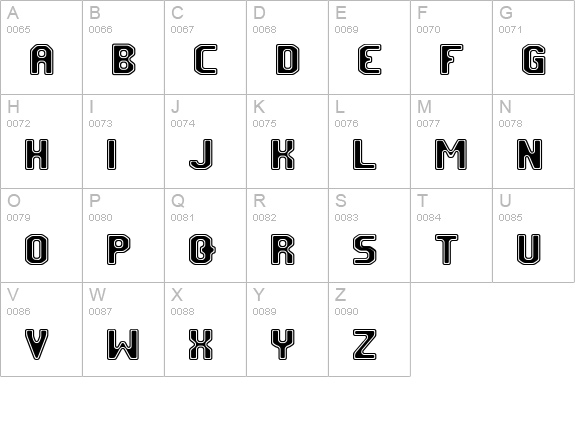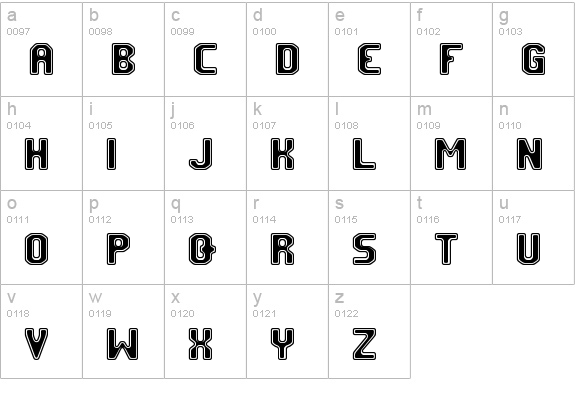
FM University is a versatile and modern font that will add a touch of elegance and sophistication to any design project. Its clean lines and balanced proportions make it perfect for both headlines and body text. This font is not only aesthetically pleasing, but it also provides excellent legibility, ensuring that your message gets across effortlessly. Whether you're designing a logo, creating a website, or working on a print project, FM University will make your text stand out and leave a lasting impression. One of the best things about FM University is that it is completely free. Yes, you read that right! This incredible font is freely available to download at FontsMarket.com. You can use it for personal and commercial projects without any restrictions or limitations. With FM University, you can unleash your creativity and bring your design ideas to life. Its wide range of weights and styles gives you the flexibility to experiment and create unique typography combinations. Whether you prefer a bold and impactful look or a more subtle and elegant one, FM University has got you covered. Don't miss out on this fantastic opportunity to enhance your designs with FM University. Download it today from FontsMarket.com and start adding a touch of sophistication to your projects.